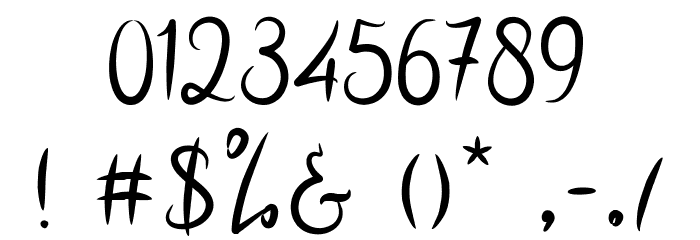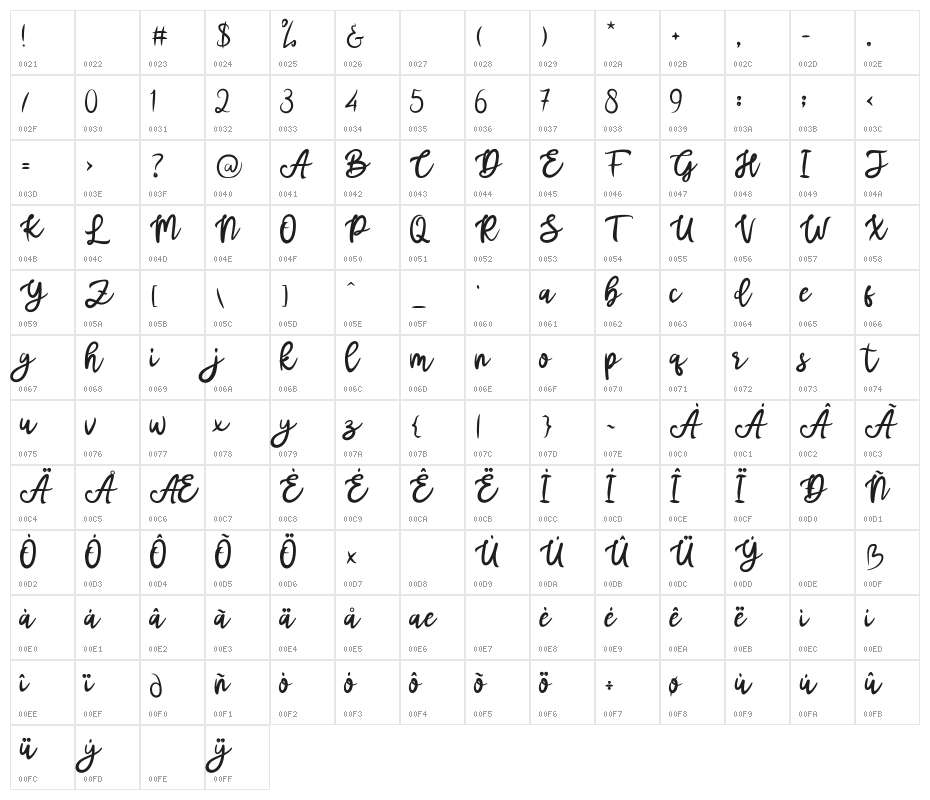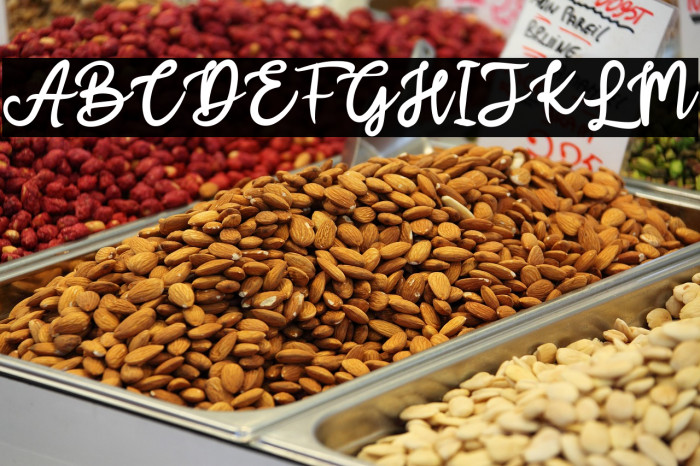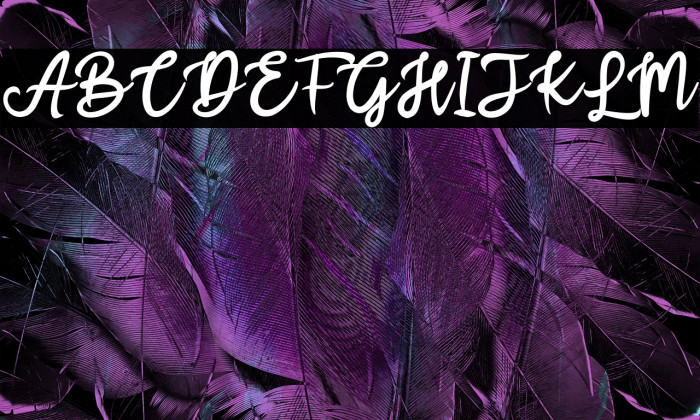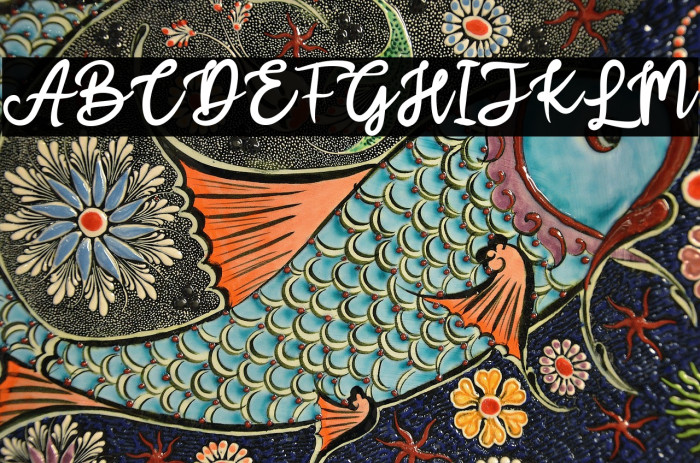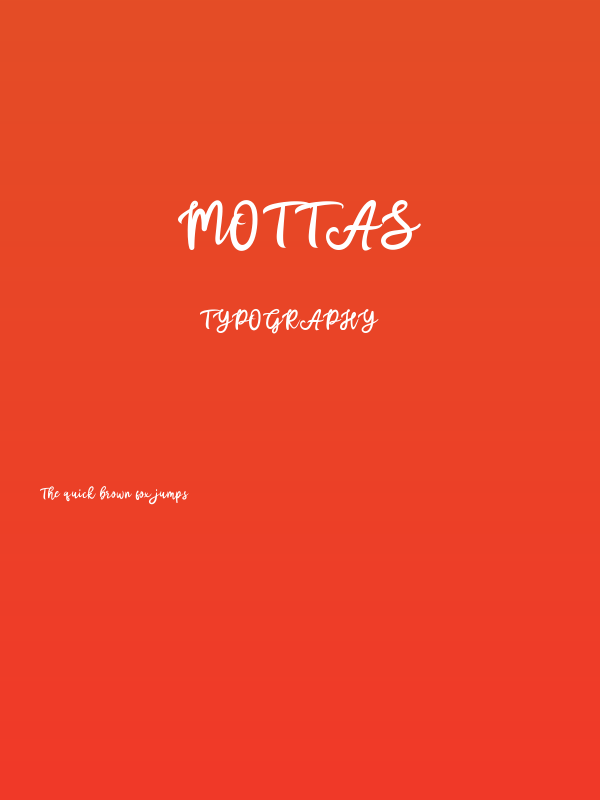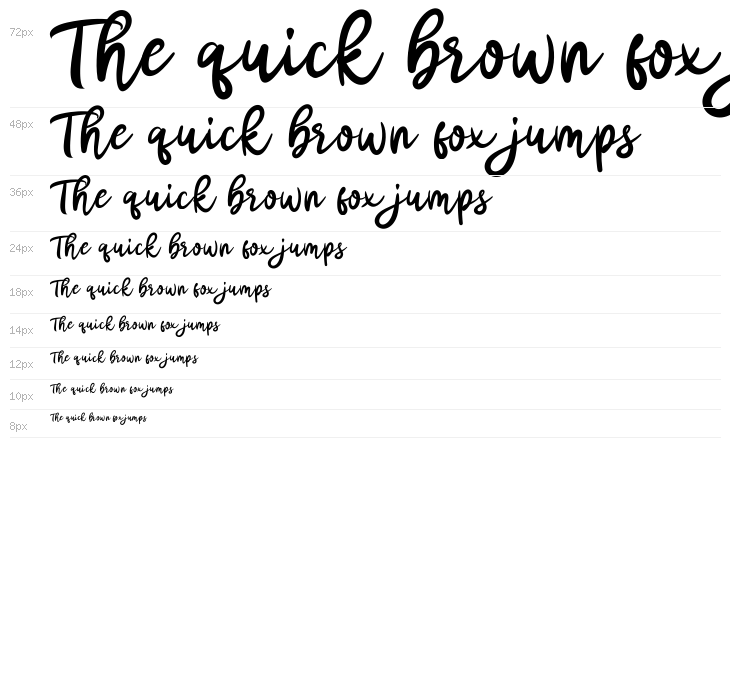
mottas Font
mottas Description
This font features a lively and expressive script style with a handwritten appearance. The characters are connected, creating a fluid and continuous flow that mimics natural handwriting. The uppercase letters are slightly more formal, while the lowercase letters exhibit a playful and casual feel. The numerals and special characters maintain the same energetic style, ensuring consistency throughout. The strokes are bold and confident, with a medium contrast between thick and thin lines, adding to the dynamic look. This font is perfect for projects that require a personal touch or a creative flair.